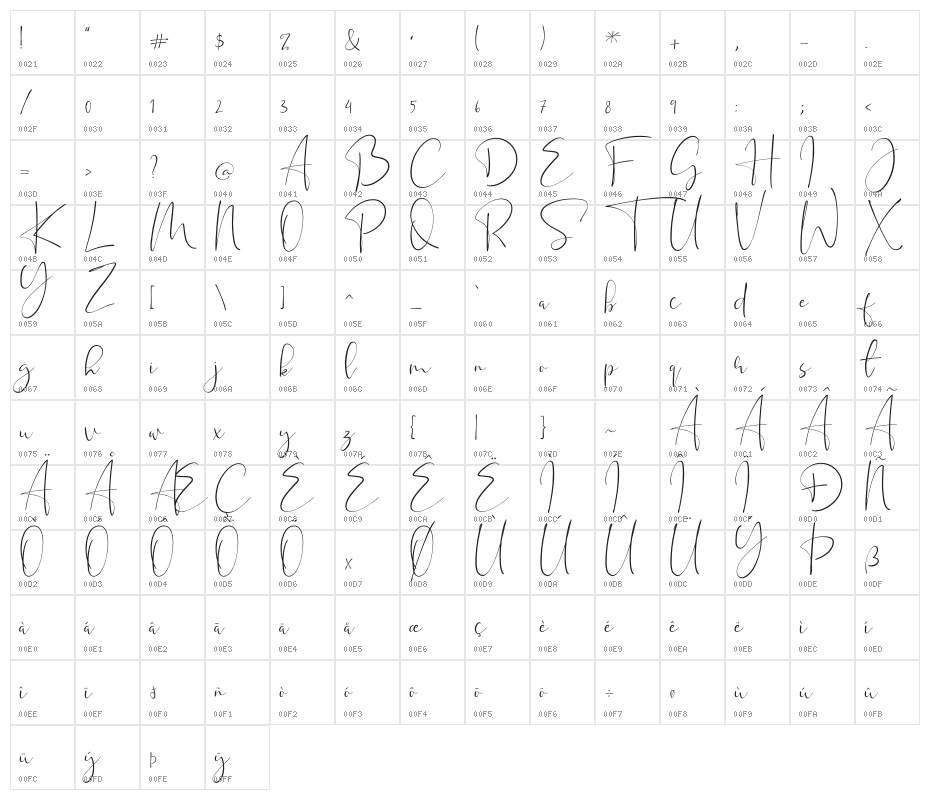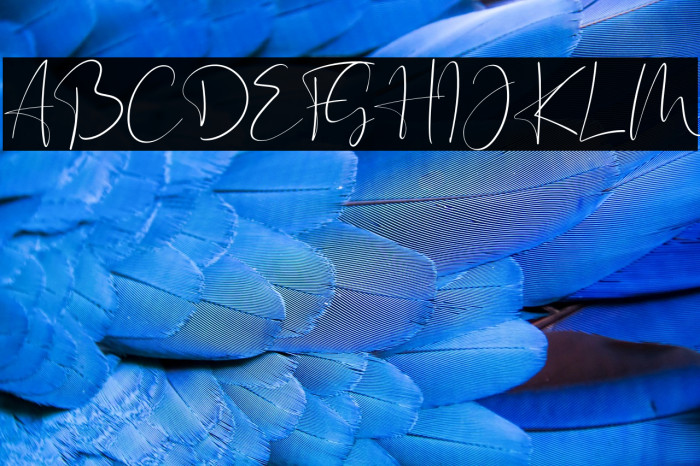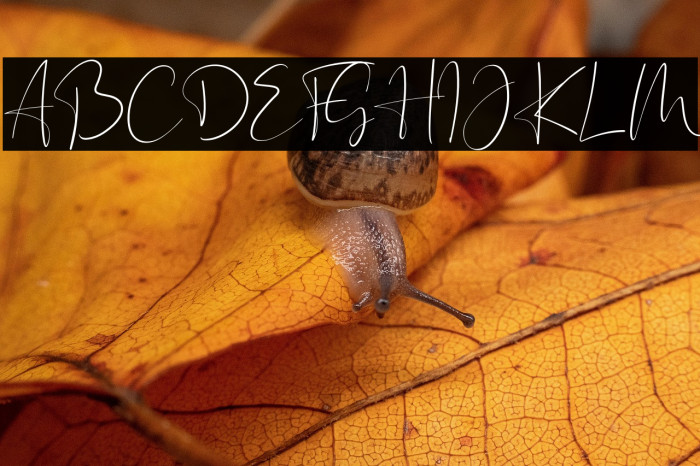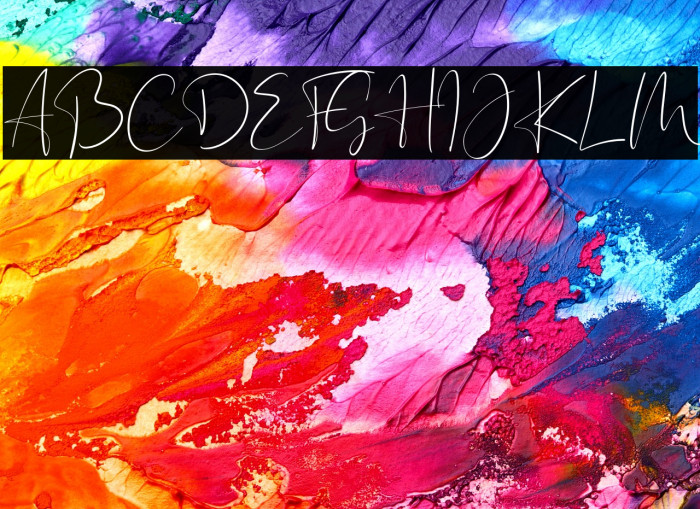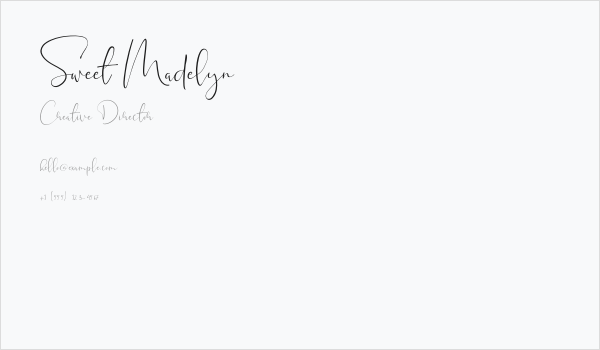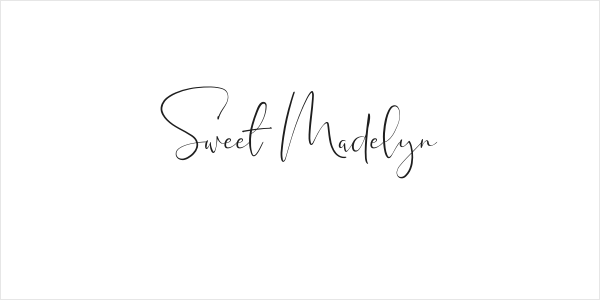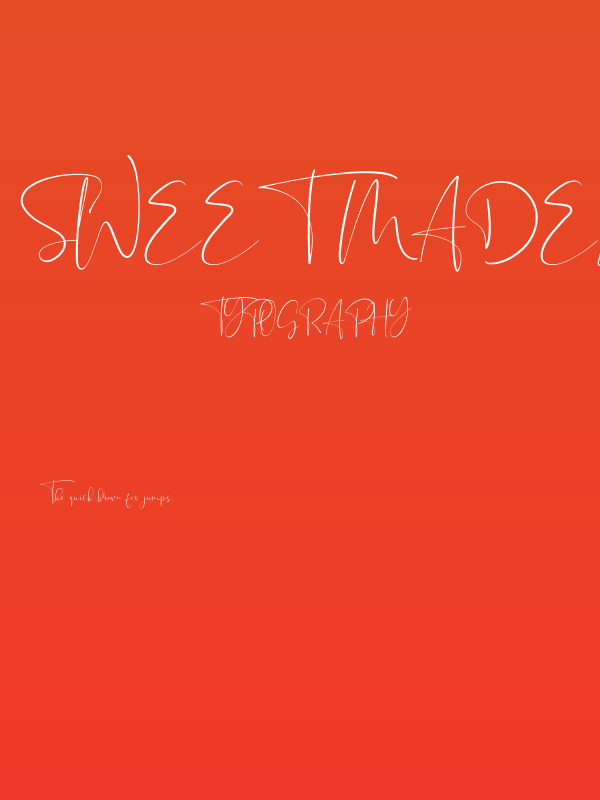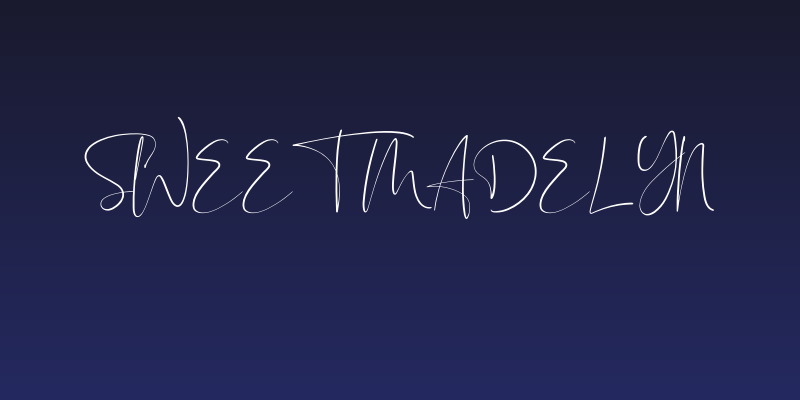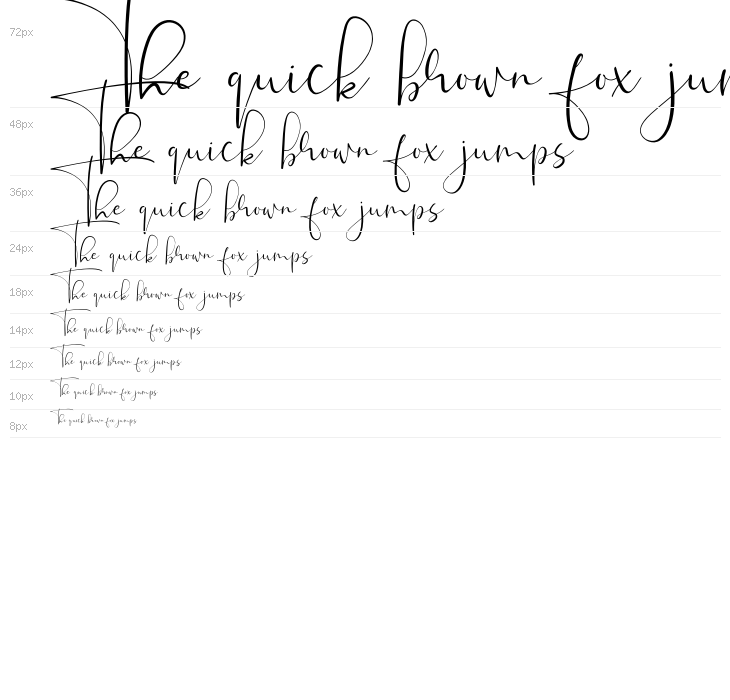
Sweet Madelyn Font
Sweet Madelyn Description
This font exudes a whimsical and artistic flair, characterized by its flowing, cursive style. The uppercase letters are tall and slender, with a slight slant that adds a dynamic feel. The lowercase letters are more elaborate, featuring intricate loops and flourishes that give the font a handcrafted appearance. The numerals are consistent with the overall style, maintaining the same elegant curves. Special characters are thoughtfully designed, integrating seamlessly with the rest of the font. The overall impression is one of elegance and creativity, making it suitable for projects that require a personal touch.
Use CaseLogos, Invitations, Artistic projects
Proposed ProjectsIdeal for wedding invitations, greeting cards, personal branding, and artistic projects.